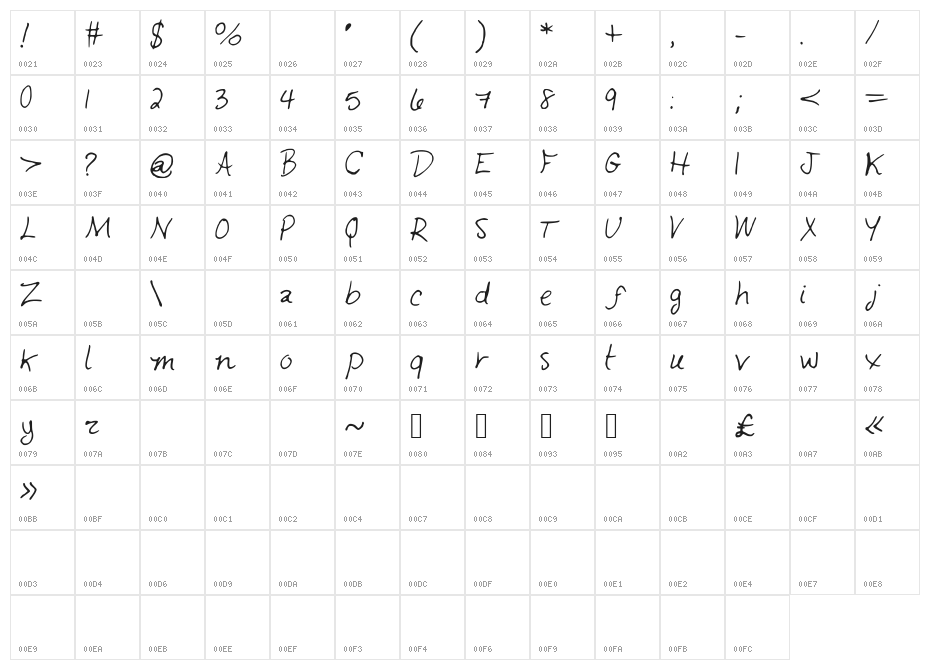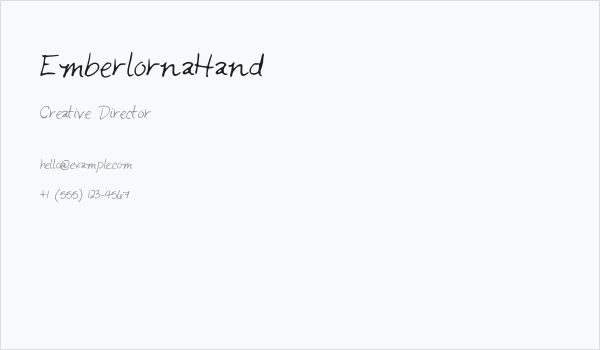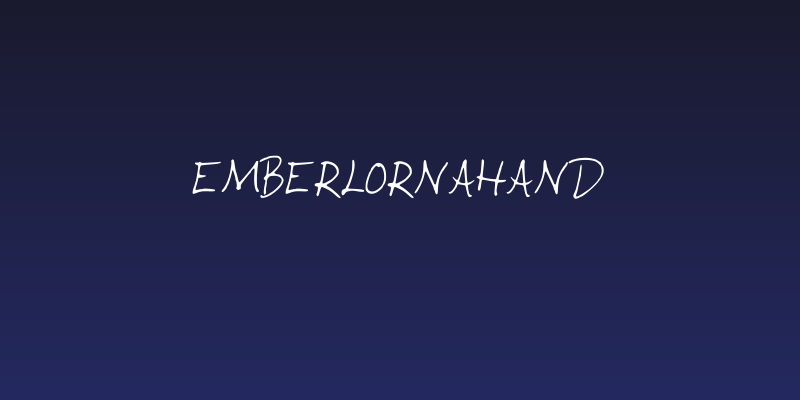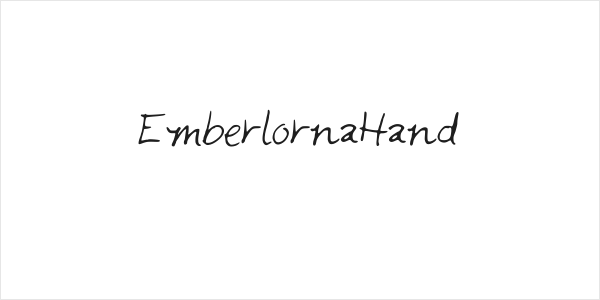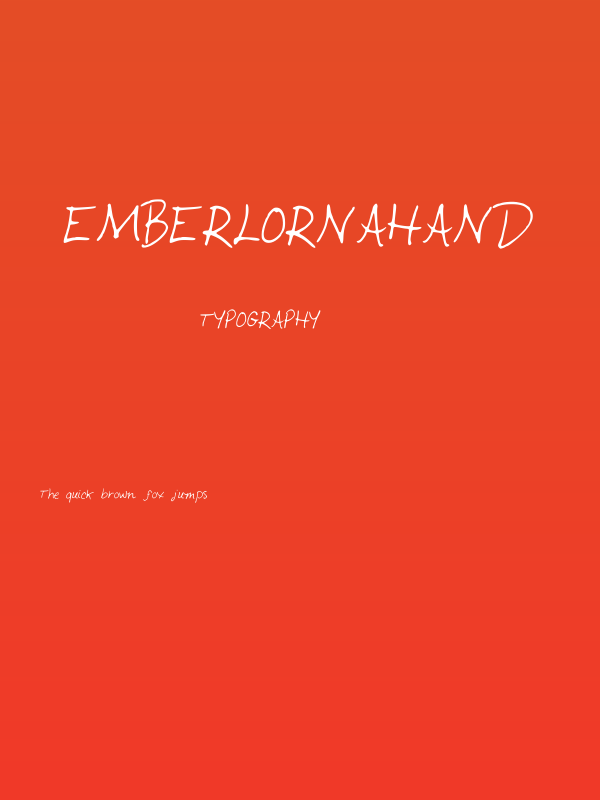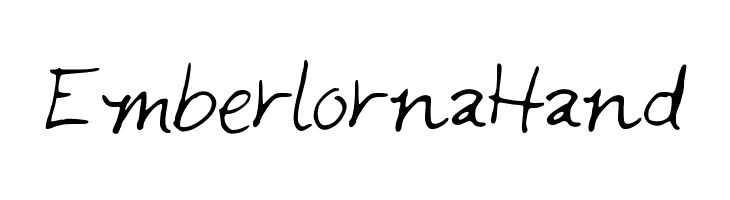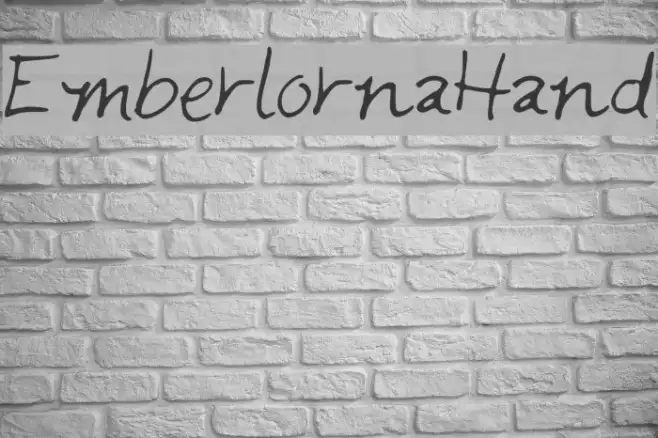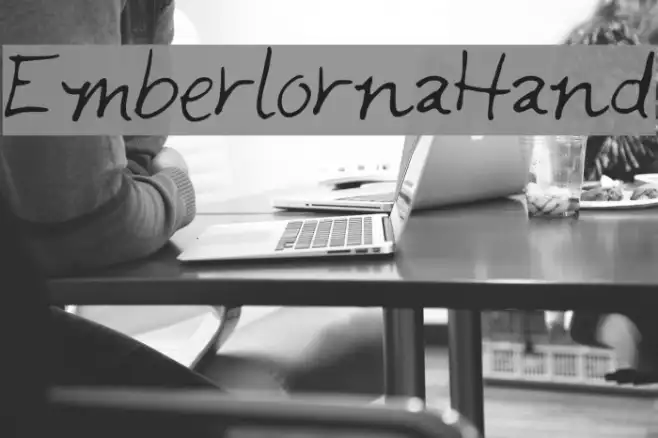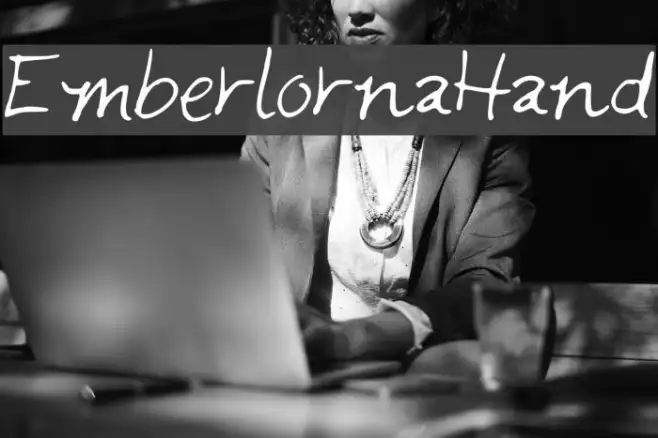
EmberlornaHand Font
EmberlornaHand Description
This font exhibits a lively and dynamic handwritten style, characterized by its fluid and slightly irregular strokes that mimic natural handwriting. The uppercase letters are bold and expressive, while the lowercase letters maintain a consistent flow, adding a personal touch to the text. The numerals and special characters are crafted with the same attention to detail, ensuring a cohesive look across all elements. The overall appearance is casual yet elegant, making it suitable for projects that require a personal or informal tone.
| Use Case | Logos, Invitations, Social Media |
| Proposed Projects | Ideal for greeting cards, personal invitations, branding projects, and social media graphics. |